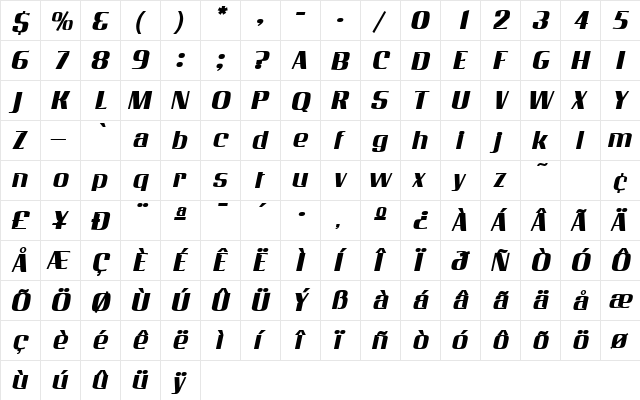
Galaxy BoldOblique
Design Context for Galaxy Typeface
Galaxy offers clean, dependable letterforms without strong stylistic allegiance, making it a practical choice for designers who need flexibility. The slanted form adds forward momentum and visual energy. Its bold stroke weight gives it real presence on the page.
Pro Tip: Use Galaxy for emphasis, pull quotes, and subheadings where its slanted energy can add rhythm to the layout.